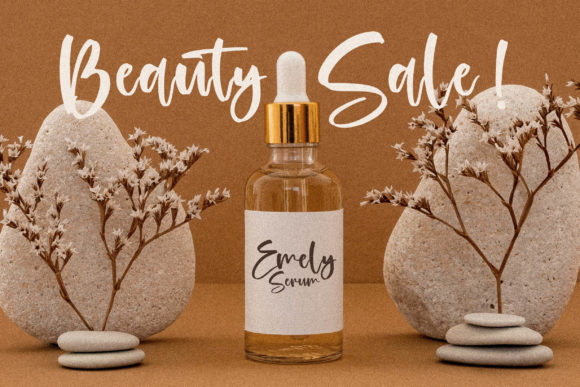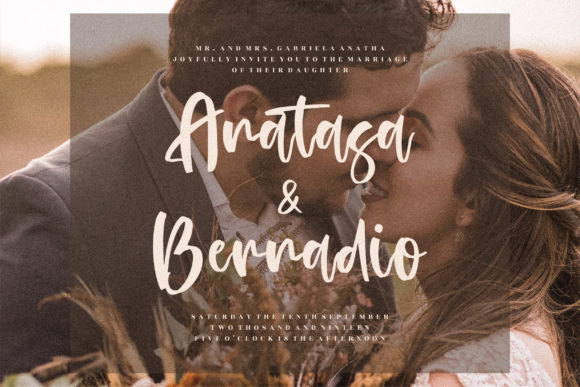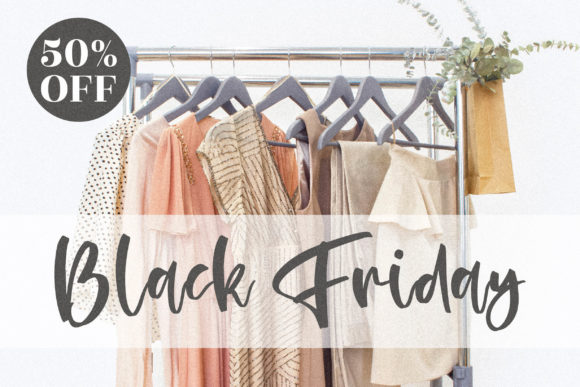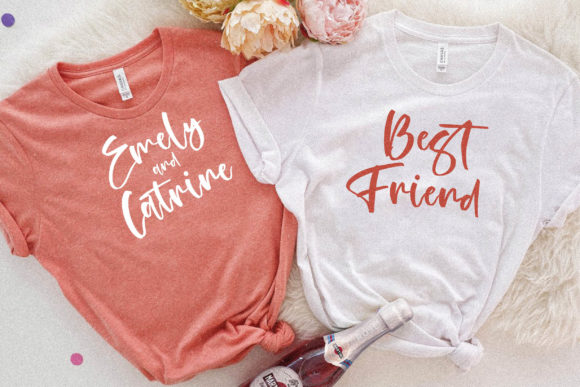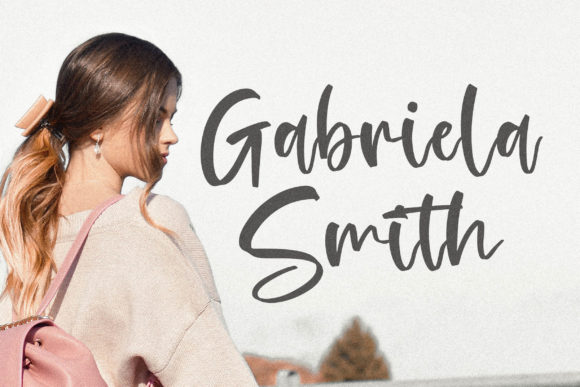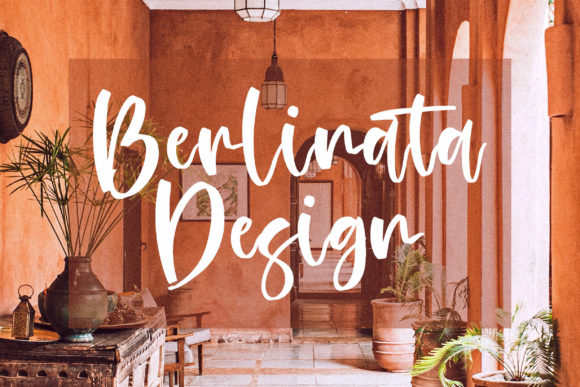
Falinlove Font: The Ultimate Script Font for Creative Projects
Are you a designer or crafter looking for a versatile and laid-back script font to elevate your creative projects? Look no further than Falinlove Font! This adaptable font is perfect for a wide range of topics and can add a touch of elegance and sophistication to any design. In this article, we’ll explore the features and benefits of Falinlove Font, and why it’s a must-have addition to your font library.
What is Falinlove Font?
Falinlove Font is a beautiful script font that exudes a sense of relaxation and casual charm. Its unique letterforms and flowing connections make it perfect for creating eye-catching headlines, titles, and descriptions. Whether you’re working on a branding project, crafting a social media post, or designing a website, Falinlove Font is sure to make your text stand out.
Key Features of Falinlove Font
- Laid-back and adaptable: Falinlove Font is designed to be versatile and can be used for a wide range of projects, from formal to informal.
- Script font: Falinlove Font is a script font with flowing connections and unique letterforms that add a touch of elegance to any design.
- Easy to read: Despite its decorative nature, Falinlove Font is easy to read, making it perfect for body text and captions.
- High-quality: Falinlove Font is a high-quality font that is designed to deliver crisp and clear results, even at small sizes.
Benefits of Using Falinlove Font
So why should you choose Falinlove Font for your next project? Here are just a few benefits of using this amazing script font:
- Adds elegance and sophistication: Falinlove Font can add a touch of elegance and sophistication to any design, making it perfect for high-end brands and luxury products.
- Enhances creativity: With its unique letterforms and flowing connections, Falinlove Font can inspire creativity and help you think outside the box.
- Versatile: Falinlove Font can be used for a wide range of projects, from print to digital, and can be easily paired with other fonts to create a unique look.
How to Use Falinlove Font
Using Falinlove Font is easy! Here are a few tips to get you started:
- Pair with other fonts: Falinlove Font pairs well with other fonts, so don’t be afraid to experiment and find the perfect combination for your project.
- Use for headlines and titles: Falinlove Font is perfect for headlines and titles, where its decorative nature can really shine.
- Experiment with colors: Falinlove Font looks great in a variety of colors, so don’t be afraid to experiment and find the perfect hue for your project.